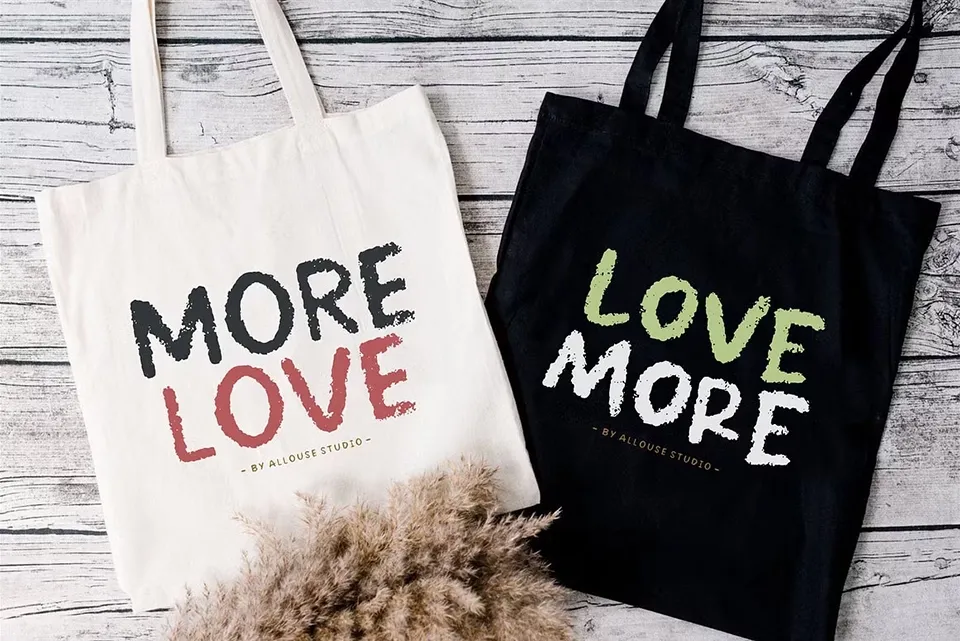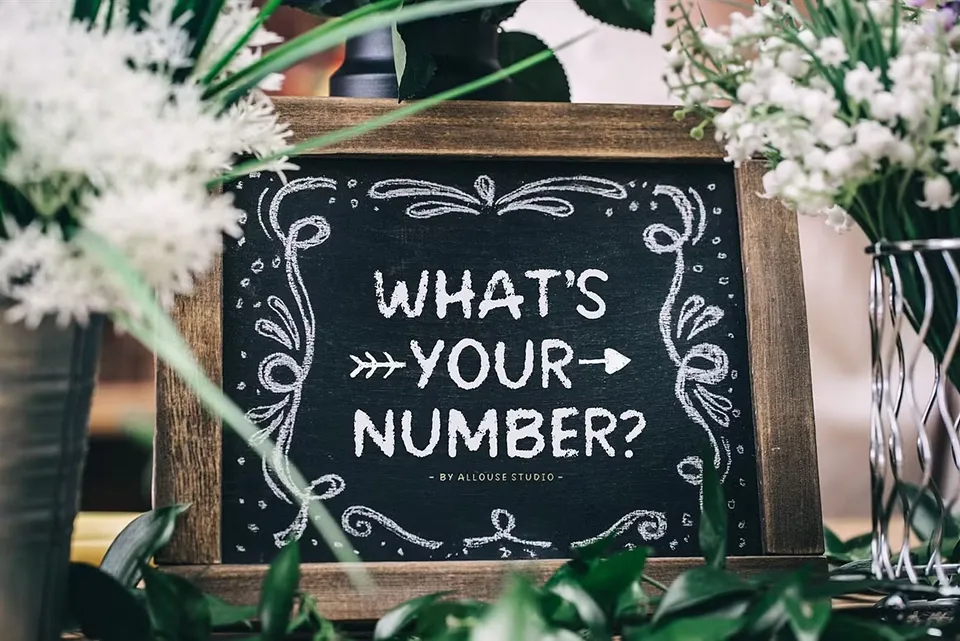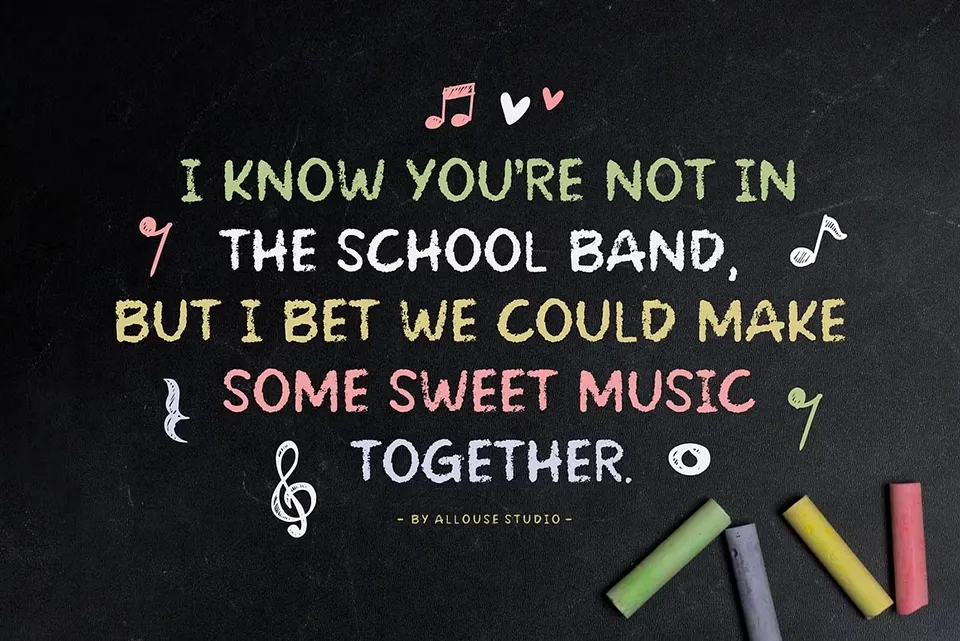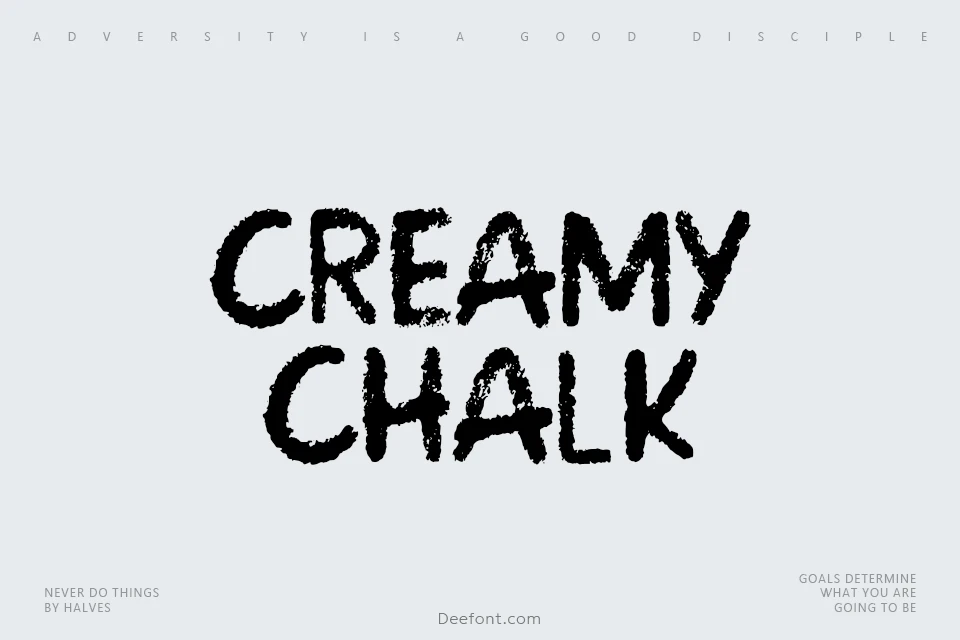
Creamy Chalk Font
Creamy Chalk Font is a hand drawn bold chalk font with a fun and fresh display style. Perfect for product packaging, branding projects, magazines, social media posts, weddings, or any creative work that needs a touch of playful chalk texture and nostalgic elegance.